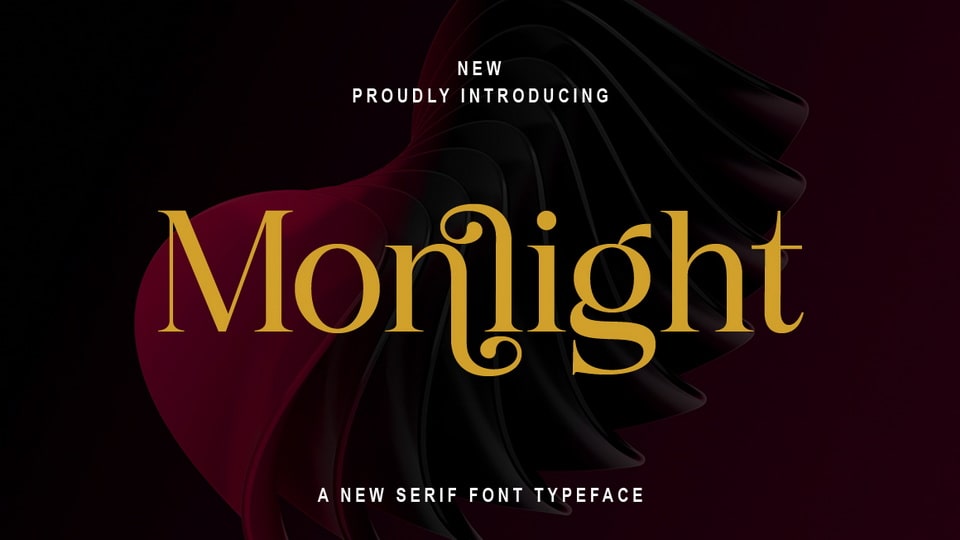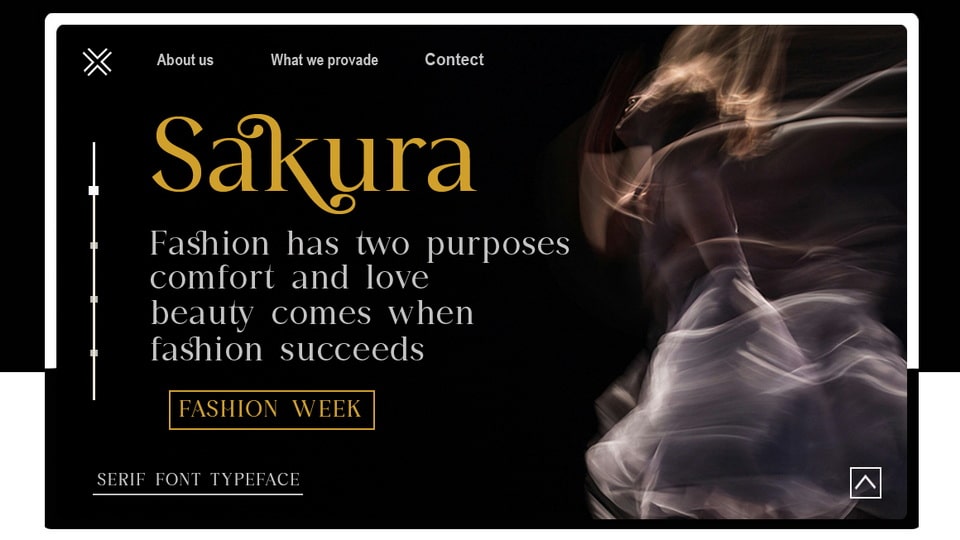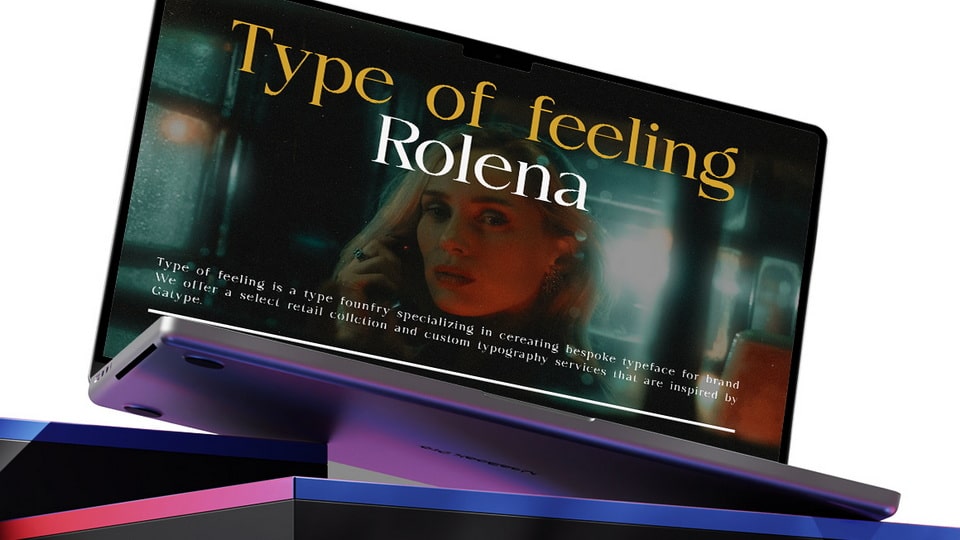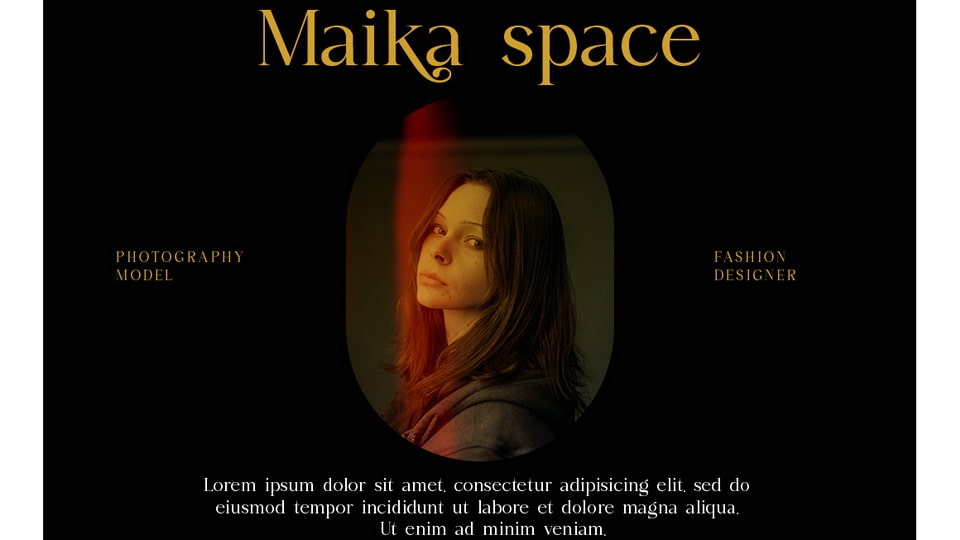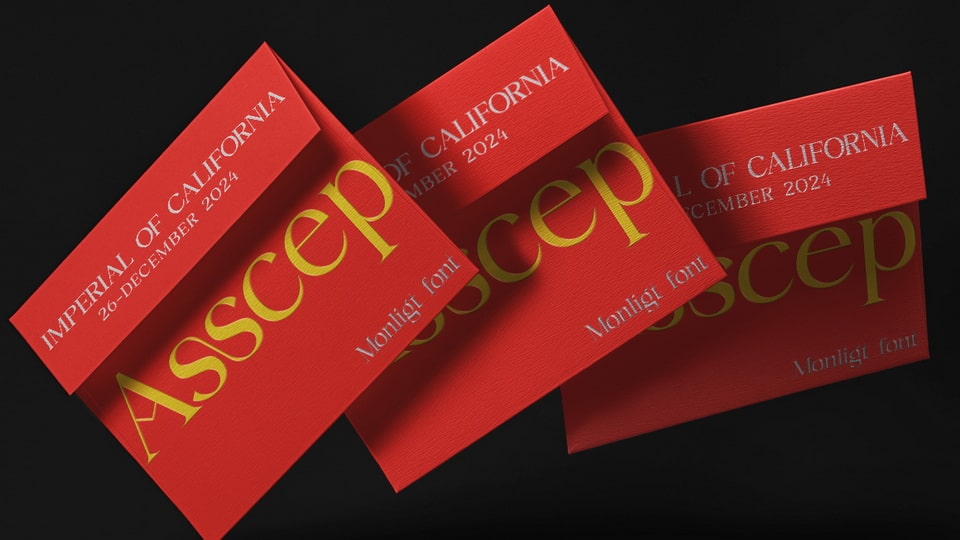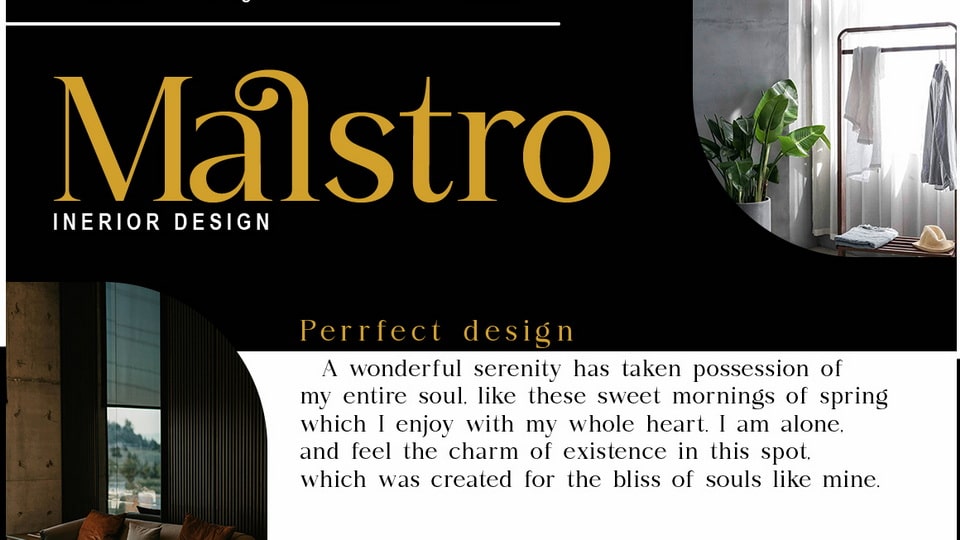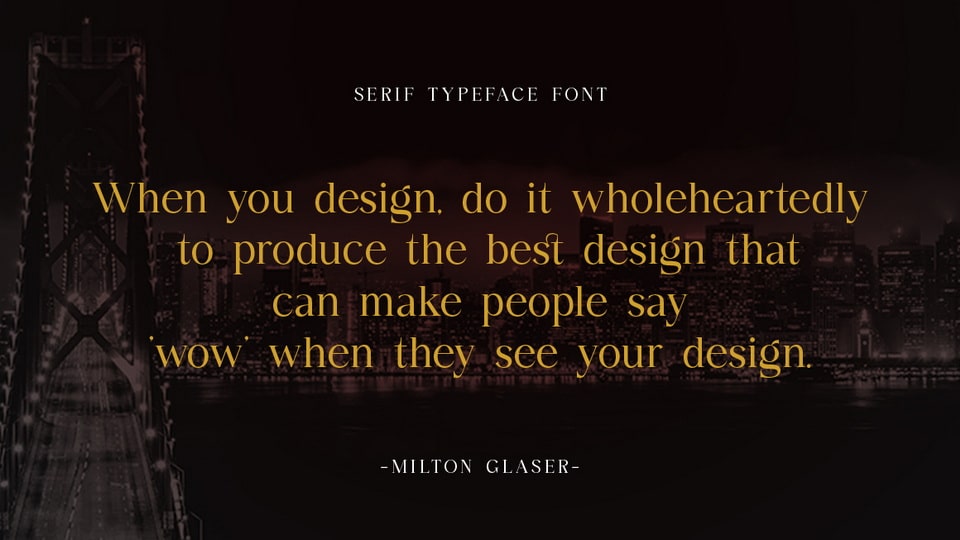
Monlight is an elegant serif font with bold, clean, large shapes. The typeface as a whole is strong in conveying order and harmony between letters. Best used as Instagram, poster, web design, magazine, logo, or product.